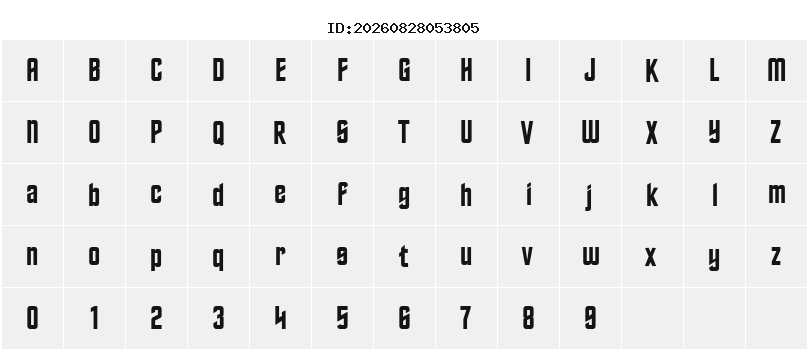
Trekkies Preview
• Font Name: Trekkies
• Full Font Name: Trekkies
About Trekkies.ttf
Trekkies.ttf is a modern, elegant sans-serif font designed for ultimate readability and visual harmony. Perfect for branding, headlines, web design, and print materials.